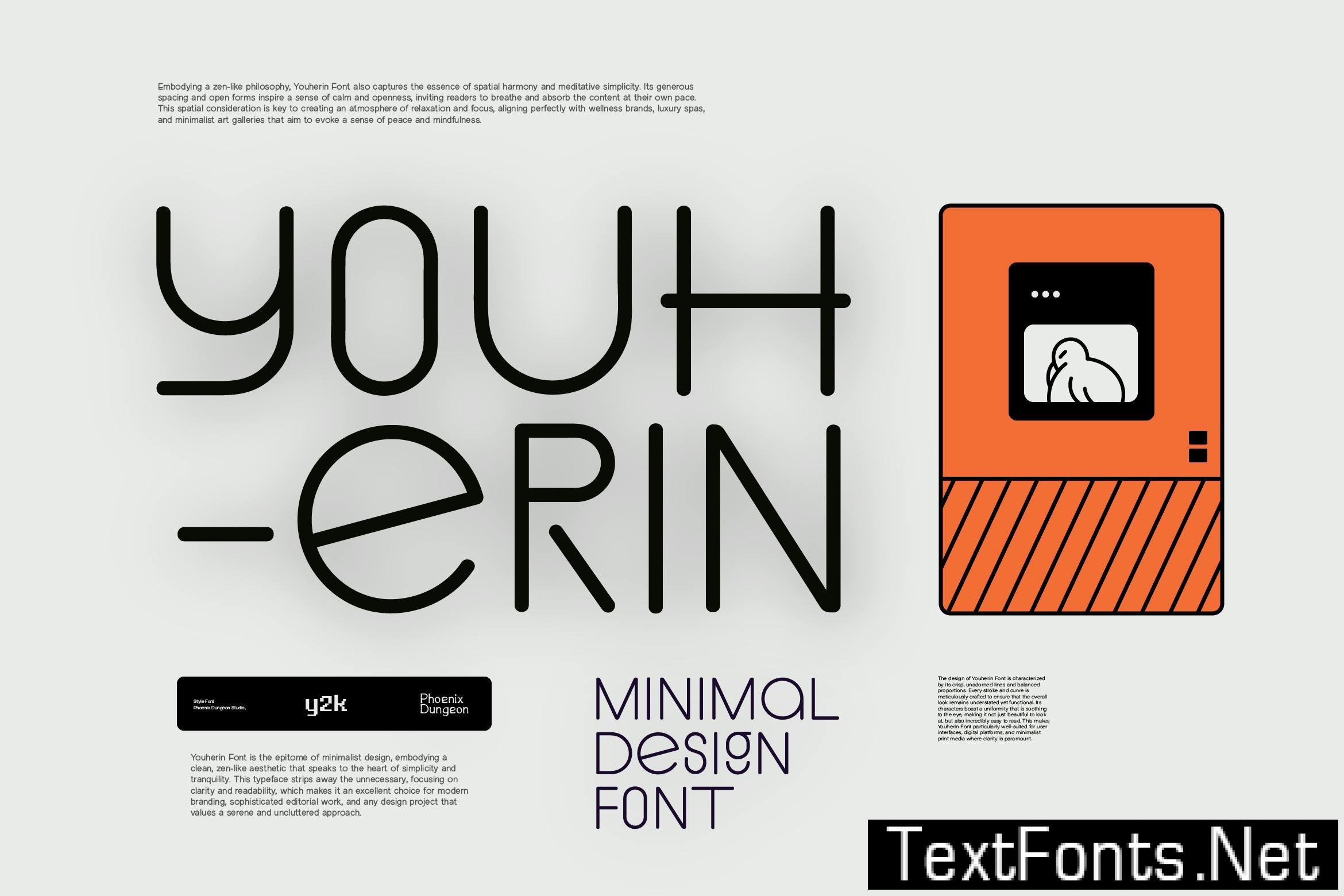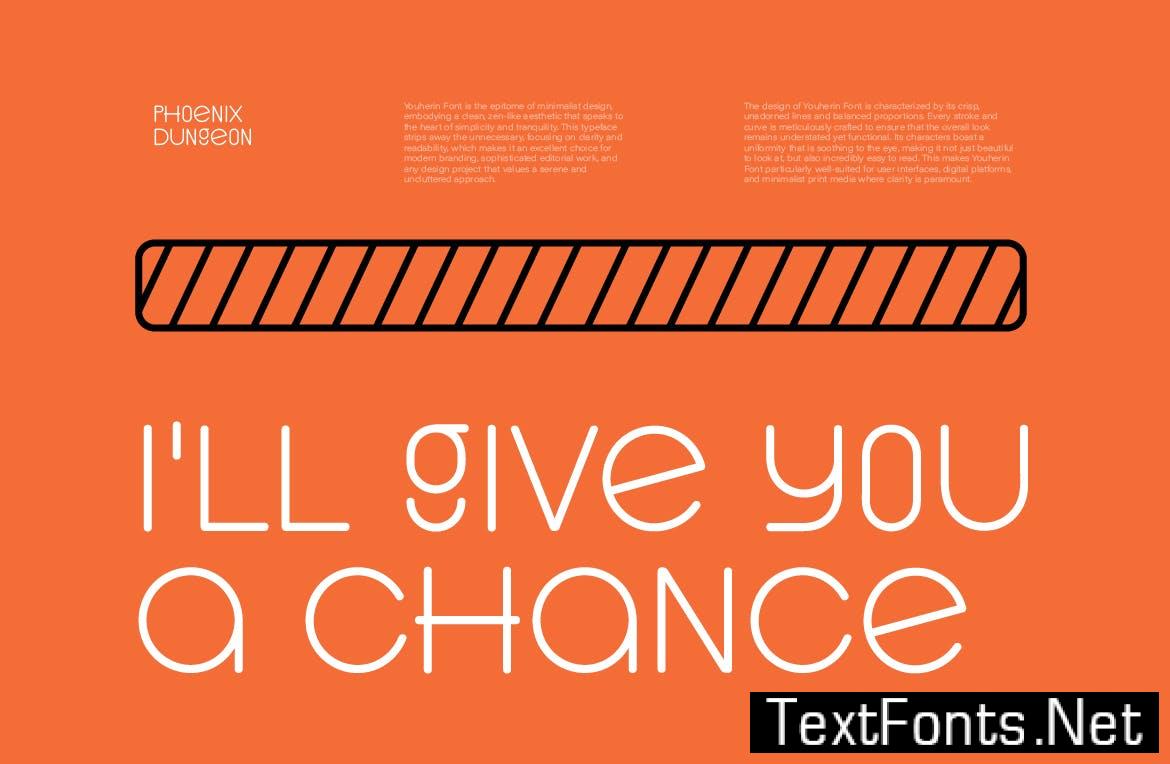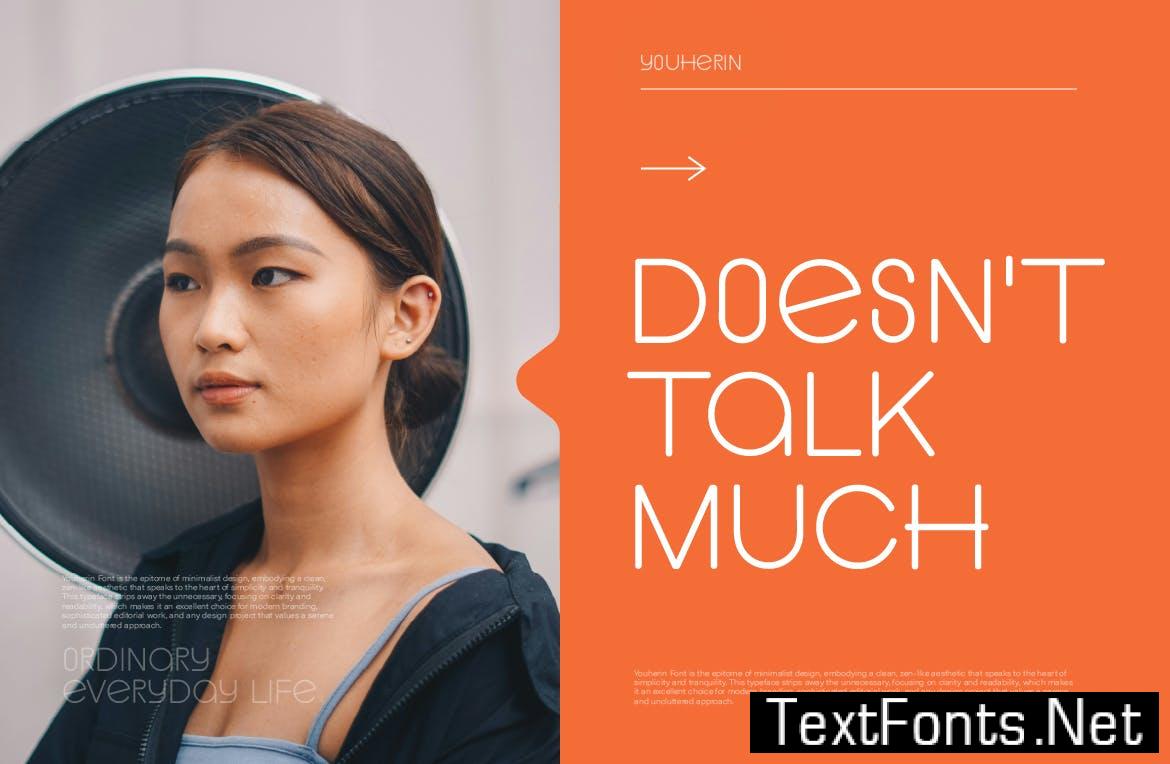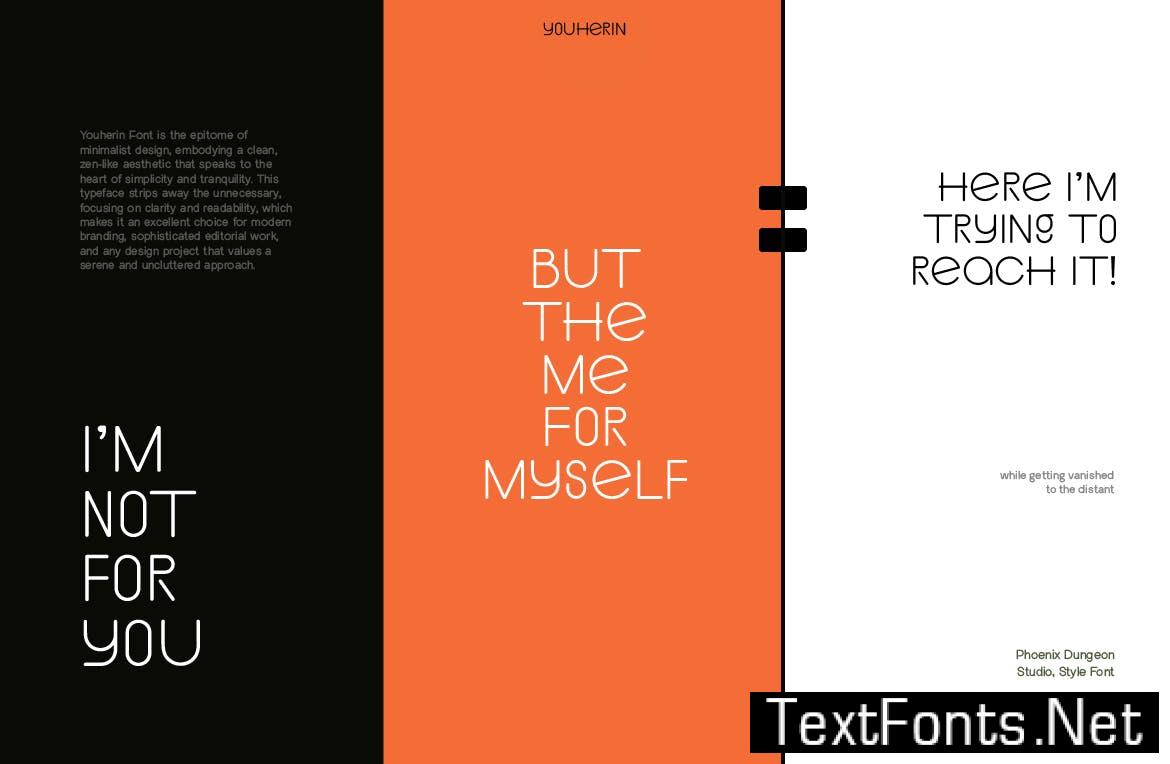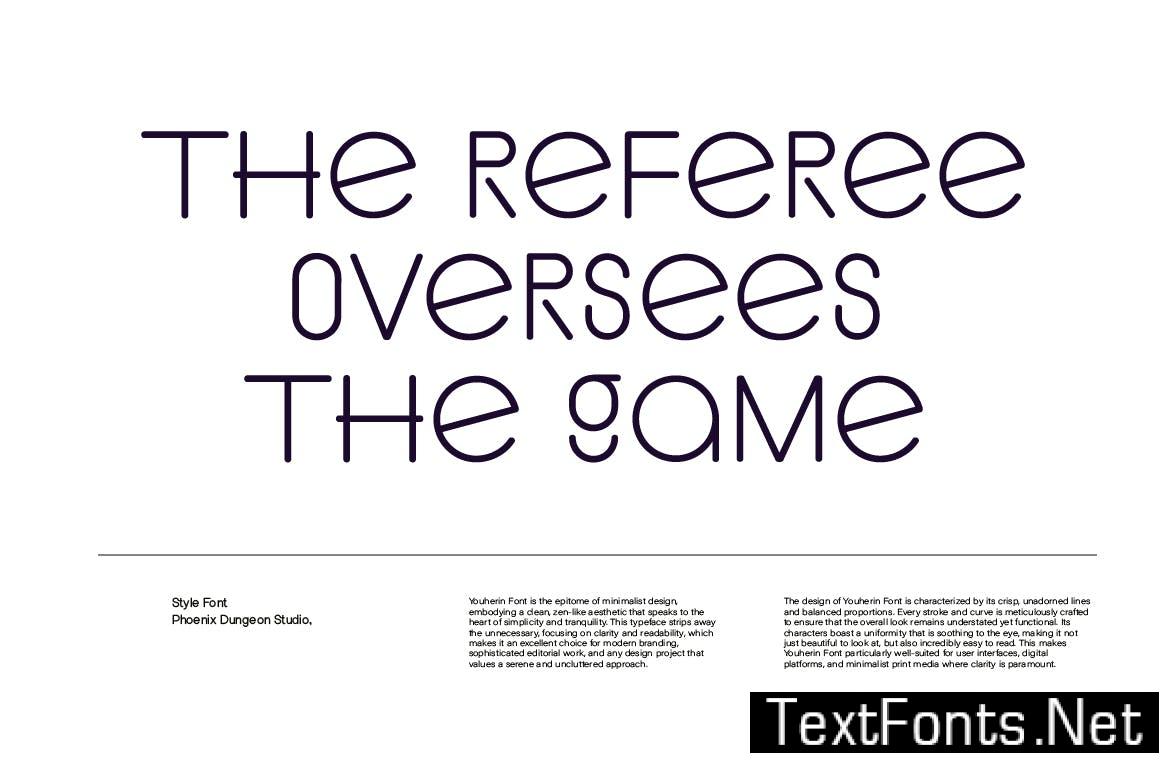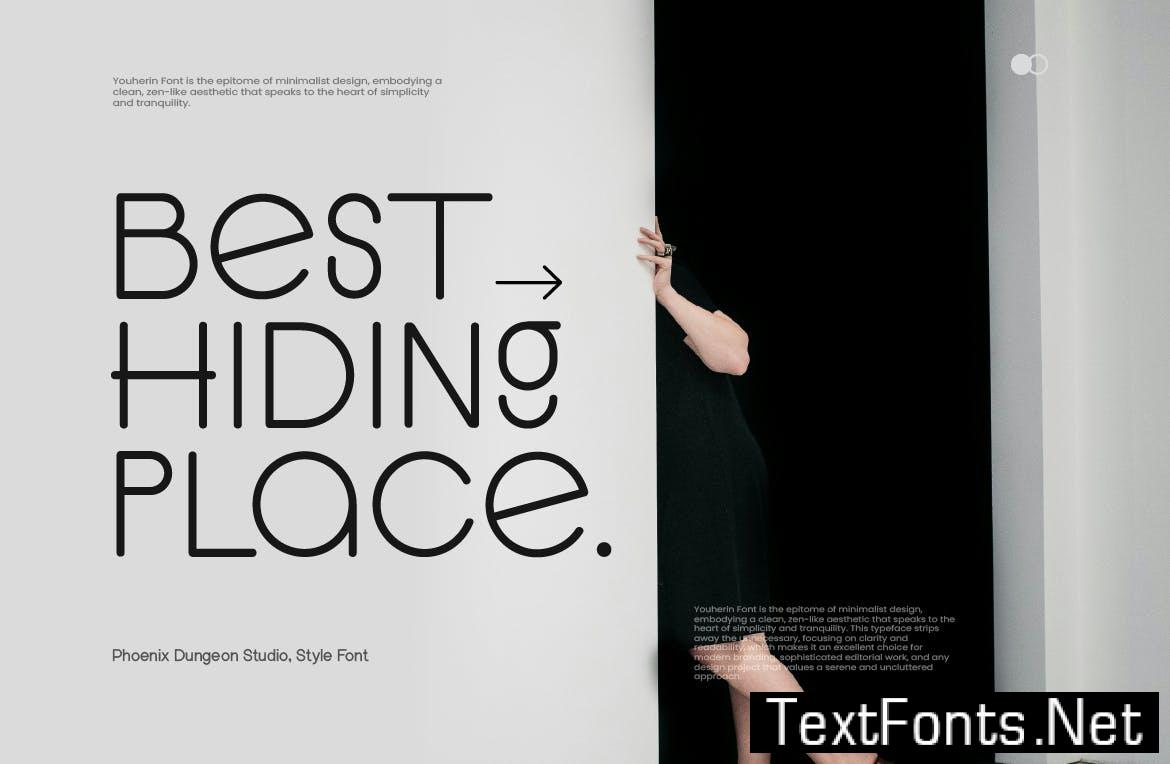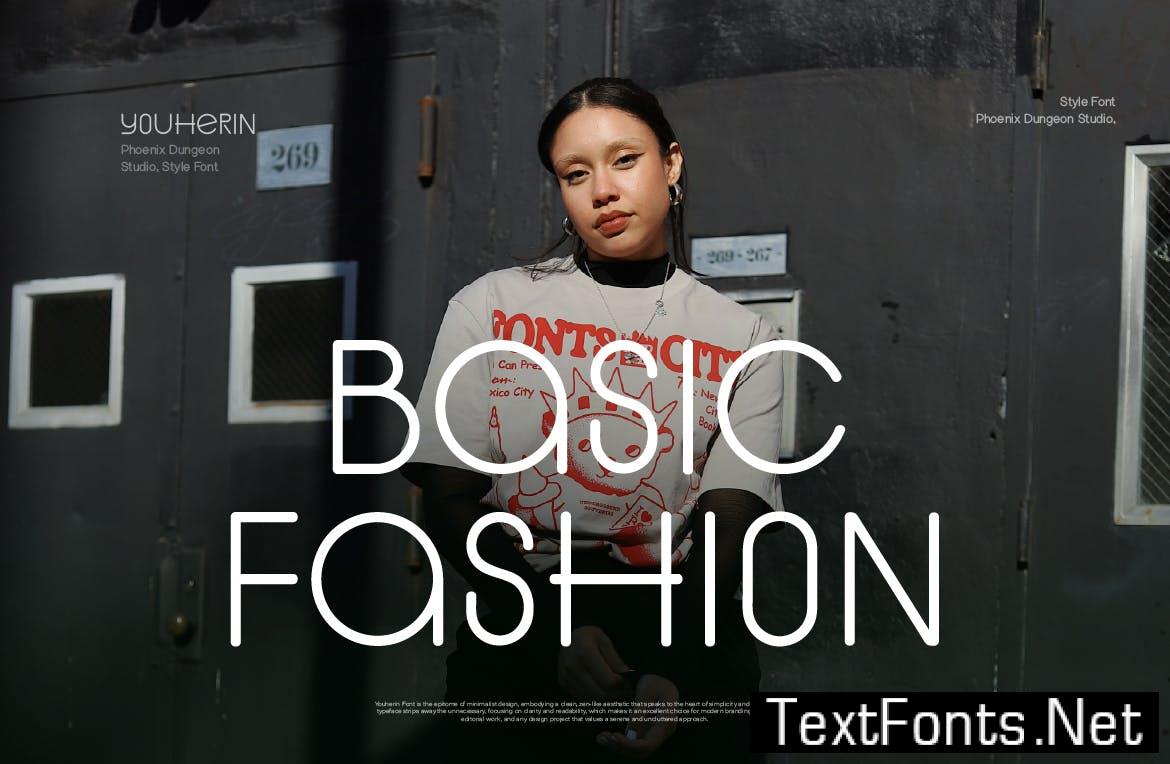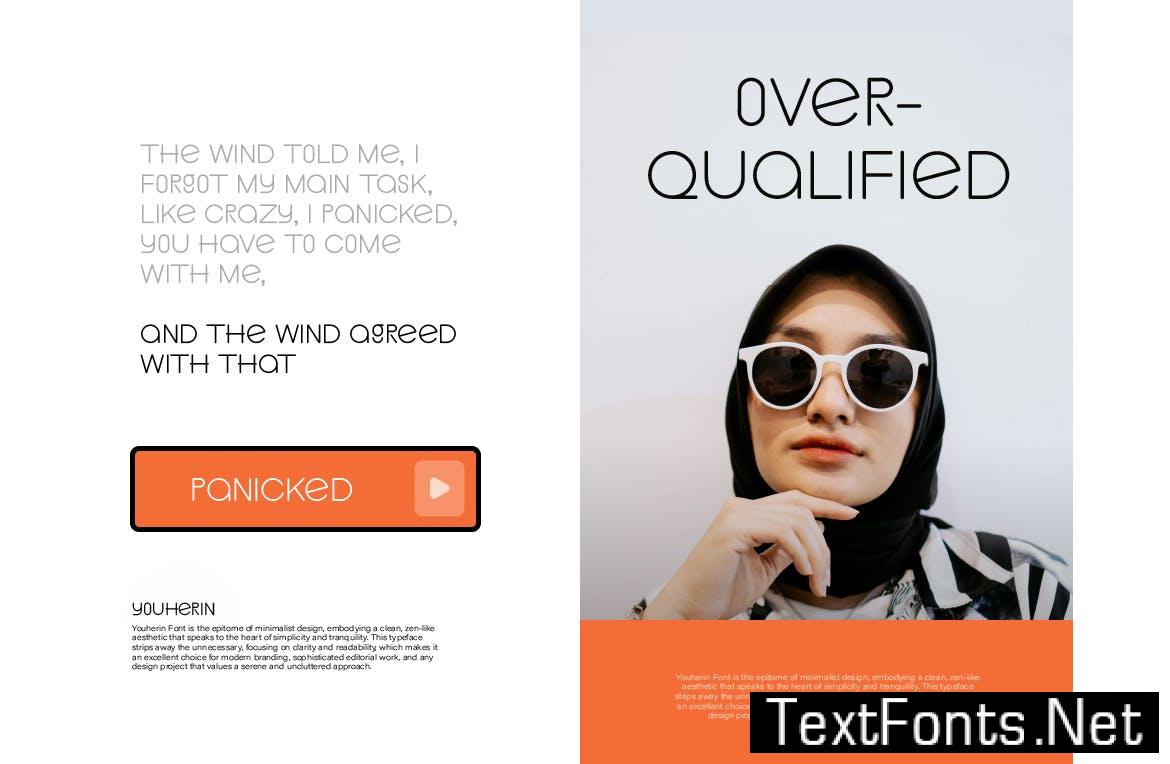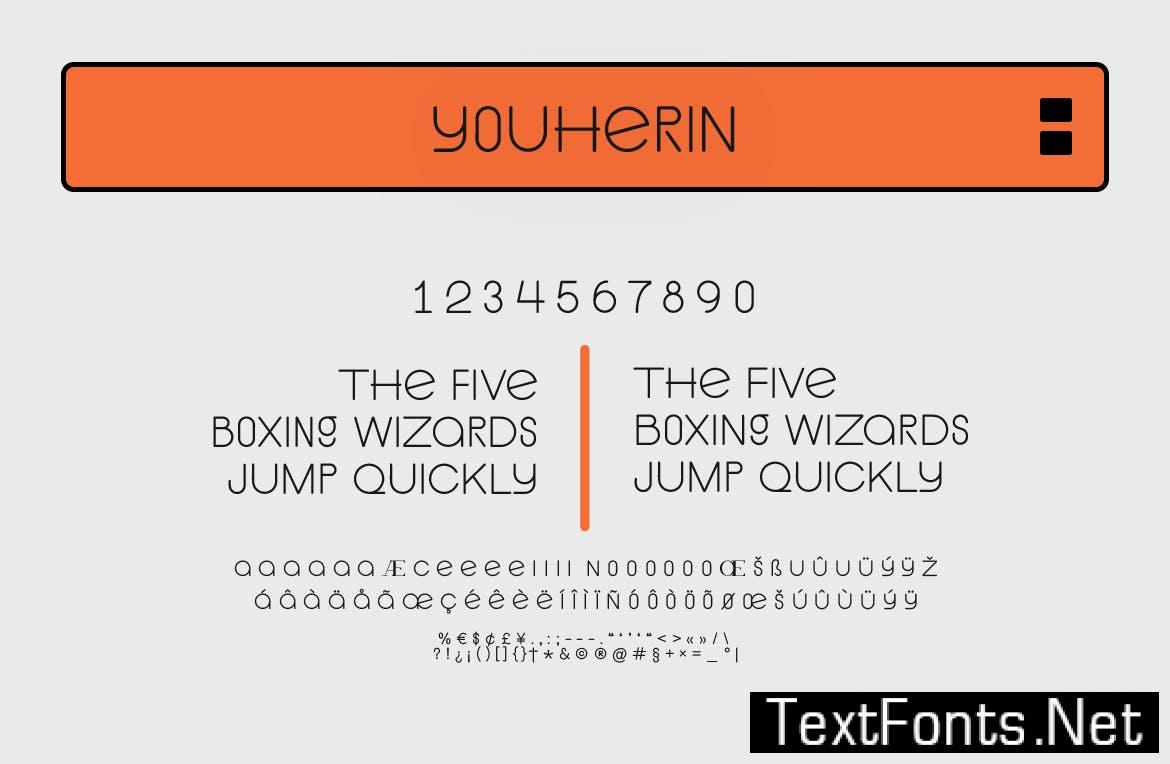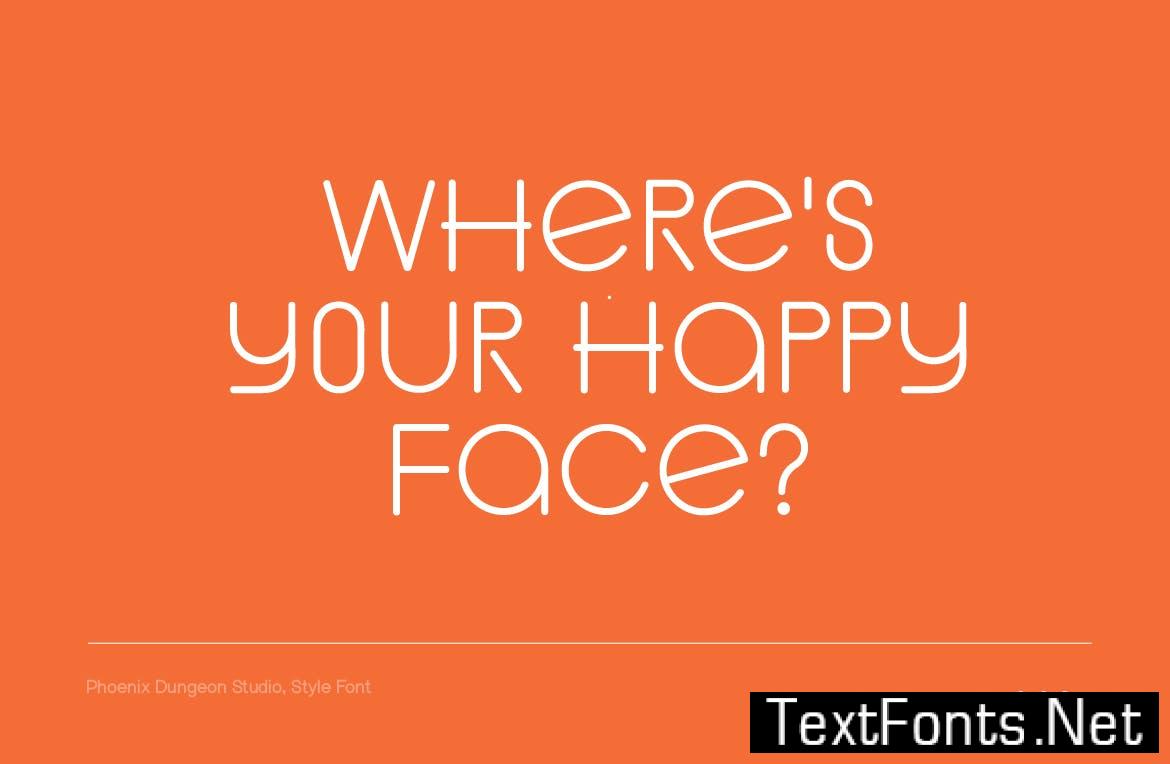
**Youherin** Font is the epitome of minimalist design, embodying a clean, zen-like aesthetic that speaks to the heart of simplicity and tranquility. This typeface strips away the unnecessary, focusing on clarity and readability, which makes it an excellent choice for modern branding, sophisticated editorial work, and any design project that values a serene and uncluttered approach.